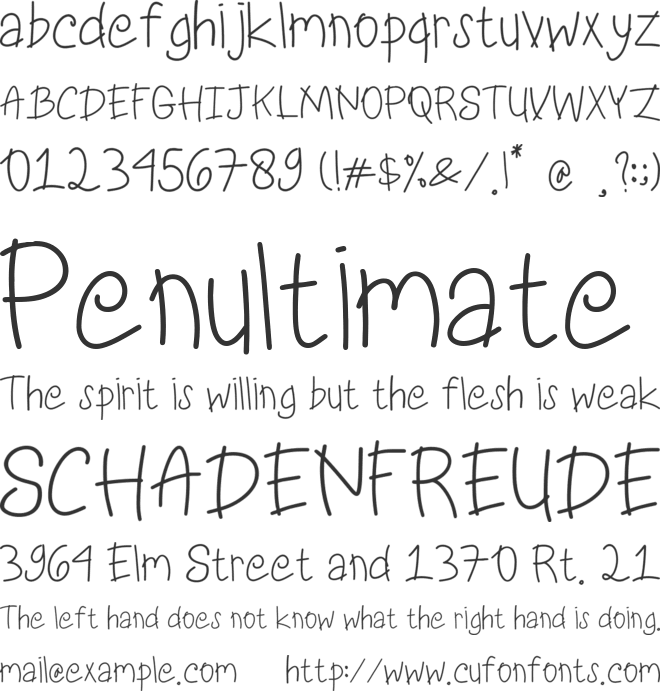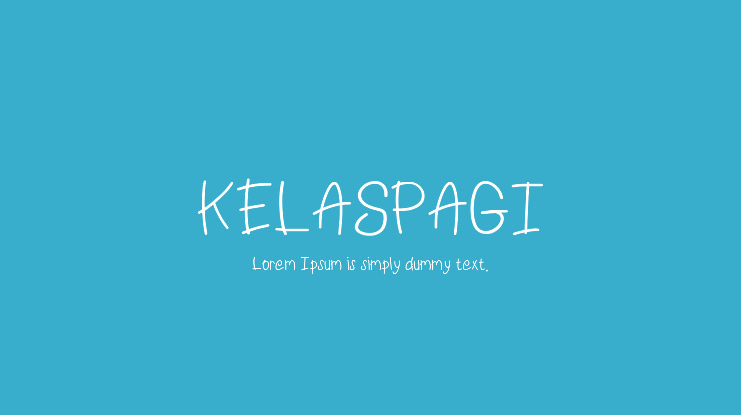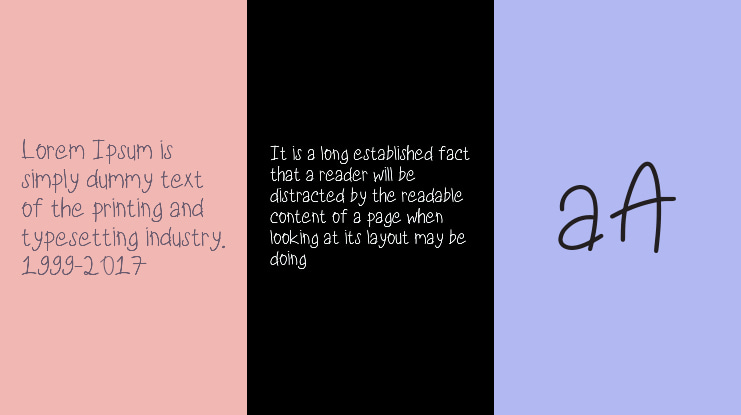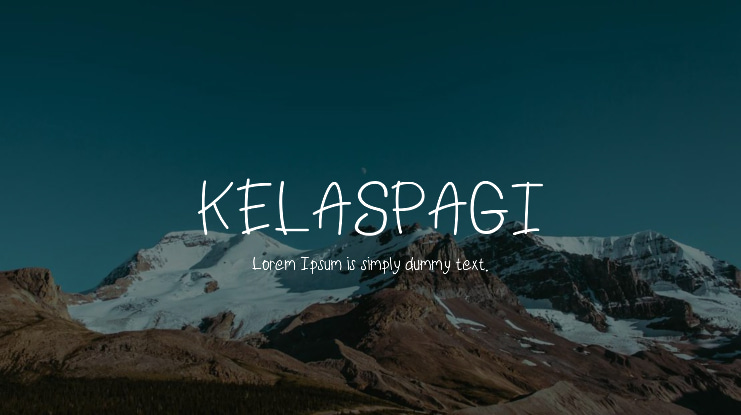
KELASPAGI Font
Kelas Pagi is a friendly and playful handwriting font designed with young students in mind. With its informal and approachable style, this font is perfect for school-related materials, children's books, and educational content that seeks to engage and captivate young minds.
The font’s natural, chalkboard-inspired appearance brings a sense of familiarity and fun, making it ideal for capturing the classroom atmosphere. Kelas Pagi supports both uppercase and lowercase letters, along with numbers and punctuation, ensuring flexibility for various uses while maintaining a consistent, school-friendly aesthetic.